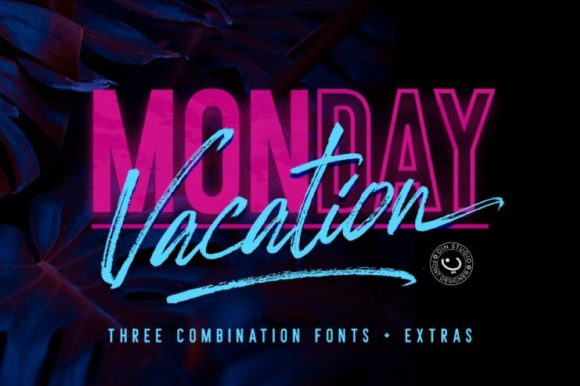
Introducing Monday Vacation Font, the ultimate choice for all your flyer design needs! This one-of-a-kind duo font, crafted by Din Studio, promises to take your designs to new heights. With its captivating combination of a cute script and a powerful brush sans serif font, Monday Vacation will leave a lasting impression on your audience.
Whether you're designing eye-catching headlines or blocks of text with varying styles, Monday Vacation has got you covered. Its versatility allows it to shine in any medium, be it web, print, or even moving images. The possibilities are truly endless!
Why settle for ordinary when you can have extraordinary? Monday Vacation Font adds a touch of uniqueness and creativity to your designs, ensuring that they stand out from the crowd. Its charming script font adds a playful and cheerful element, while the brush sans serif font exudes strength and boldness.
Let your designs speak for themselves with Monday Vacation Font. Capture attention, evoke emotions, and make a lasting impact on your audience. Whether you're creating flyers, posters, or social media graphics, this font will help you achieve stunning results.
But don't just take our word for it. Try Monday Vacation Font today and witness the magic for yourself. Feel the excitement as you see your designs come to life with this exceptional font. Say goodbye to boring and hello to creativity!
Unlock your design potential and create masterpieces that leave a lasting impression. Monday Vacation Font is your secret weapon for captivating your audience and elevating your designs to new heights. Don't miss out on this opportunity to make a statement and stand out from the crowd.